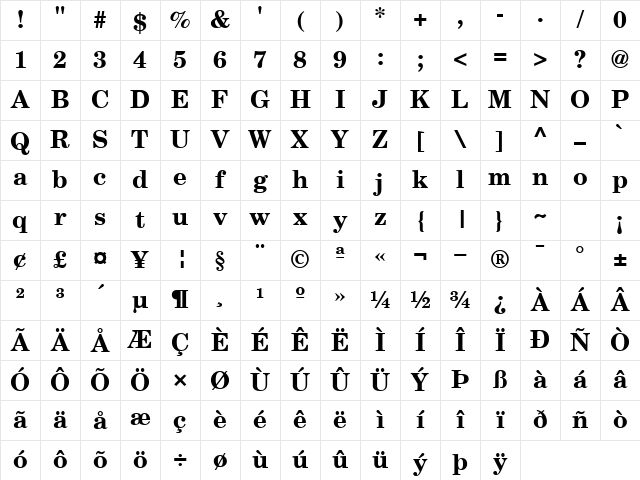
Complete NewMilleniumSchlbk BoldSH glyph index. Displaying only characters natively supported by NewMilleniumSchlbk BoldSH font.
NewMilleniumSchlbk is a composed and adaptable typeface that performs quietly and consistently across a wide range of design contexts. Its bold stroke weight gives it real presence on the page.